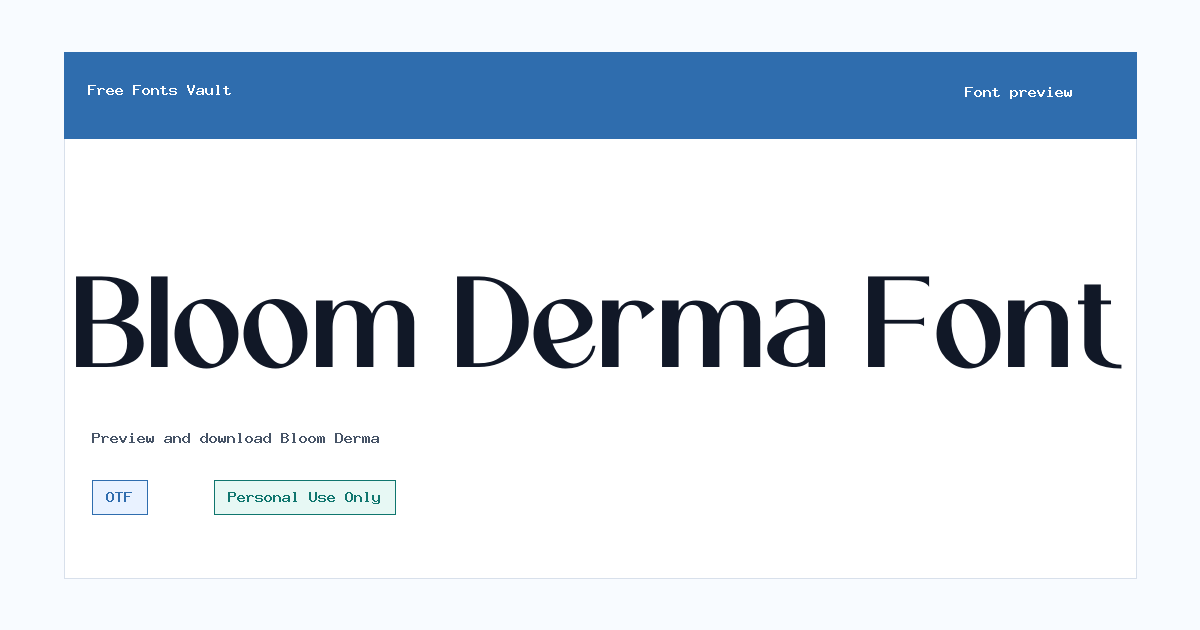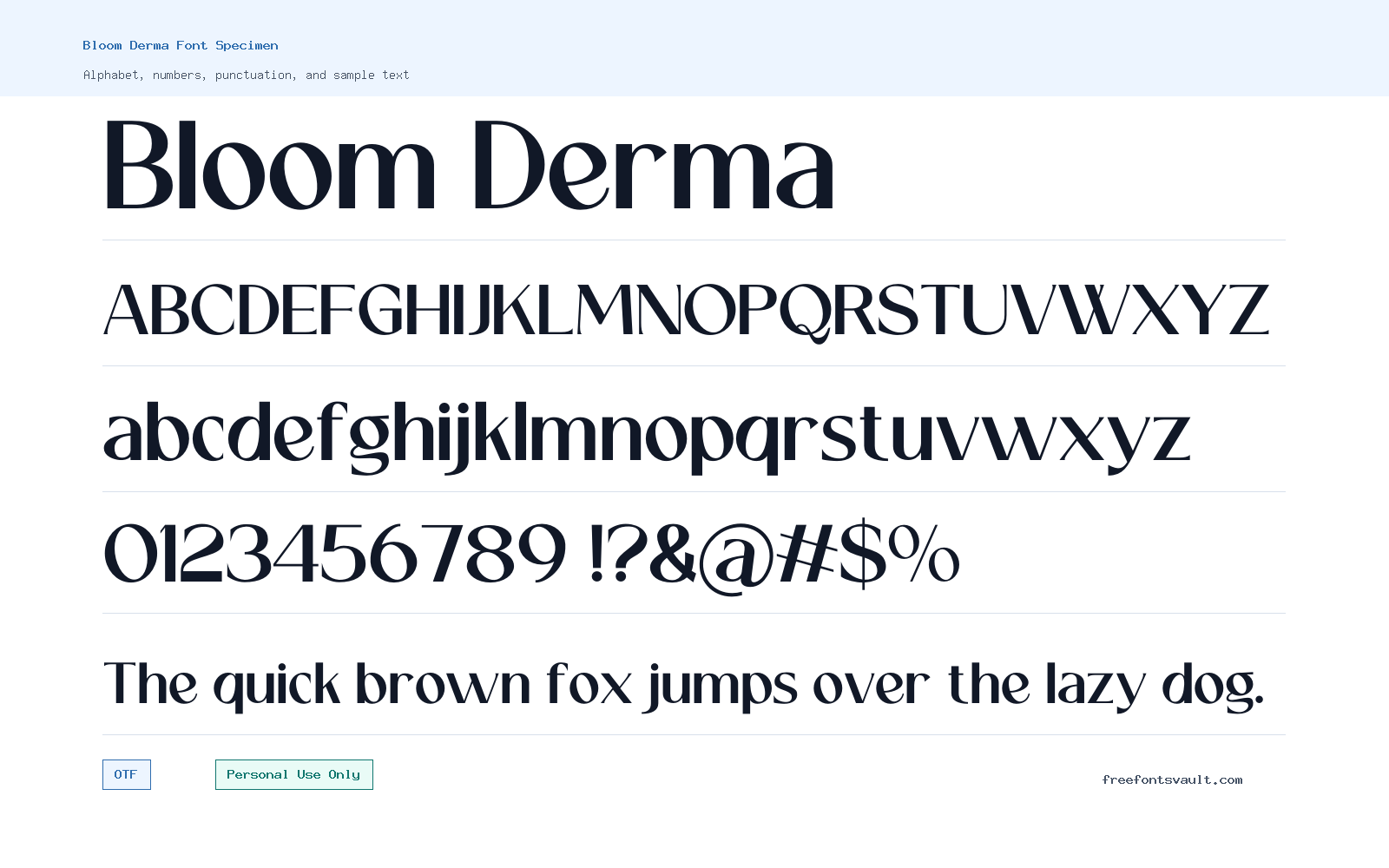
Bloom Derma
Bloom Derma Font
• Designer Annisa Febriani
• Foundry Funtype Co.
Bloom Derma font.
Bloom Derma is a bold sans serif font with a stylish display feel, made for visitors who want strong lettering in short, eye-catching text.
About Bloom Derma
Bloom Derma works best when the words need weight and presence. The available OTF file is a regular style at normal weight, but its look is built more for display use than quiet reading. The source description presents it as a bold, stylish sans serif suited to powerful typography, with examples such as headlines, contemporary posters, album art, lifestyle graphics, branding mockups, and high-impact advertising layouts. Those are useful directions, but the license limit matters: the downloadable file is marked for personal use only, so treat it as a trial for non-commercial practice, drafts, personal graphics, or layout testing unless you obtain the proper commercial license from the rights holder.
Use the preview box to test the exact words you plan to set, not just a sample alphabet. Try uppercase titles, mixed-case names, short taglines, and numbers if your design needs dates or prices. Bloom Derma should be easier to judge at poster, header, thumbnail, and social graphic sizes than in long paragraphs. If you need body copy, pair it with a plain, readable sans serif and let Bloom Derma handle the title or accent line. Keep spacing in mind: bold display fonts can feel crowded when the text is small, tightly tracked, or placed over a busy image. For clean results, give the letters room, use strong contrast, and test the design on both desktop and mobile screens before you download or share a mockup.
• Bold sans serif display style for short, high-impact text such as titles, covers, posters, and graphic headers.
• Personal poster drafts, album-art concepts, lifestyle graphics, mood boards, and social media title images.
• Website hero text, logo concept sketches, packaging mockups, and brand direction tests where a strong sans serif headline is needed.
The font listing lists Annisa Febriani as the designer and Funtype Co. as the foundry. No additional verified biography or release background was included, so this page does not add unsupported origin details.
What kind of projects is Bloom Derma good for?
It is best suited to short display text such as headlines, posters, album art concepts, lifestyle graphics, social images, and branding mockups for personal testing.
Should I use Bloom Derma for paragraphs?
It is better for titles and short phrases. For paragraphs, use a simpler reading font and keep Bloom Derma as the visual accent.
Who designed Bloom Derma?
The page information lists Annisa Febriani as the designer and Funtype Co. as the foundry.